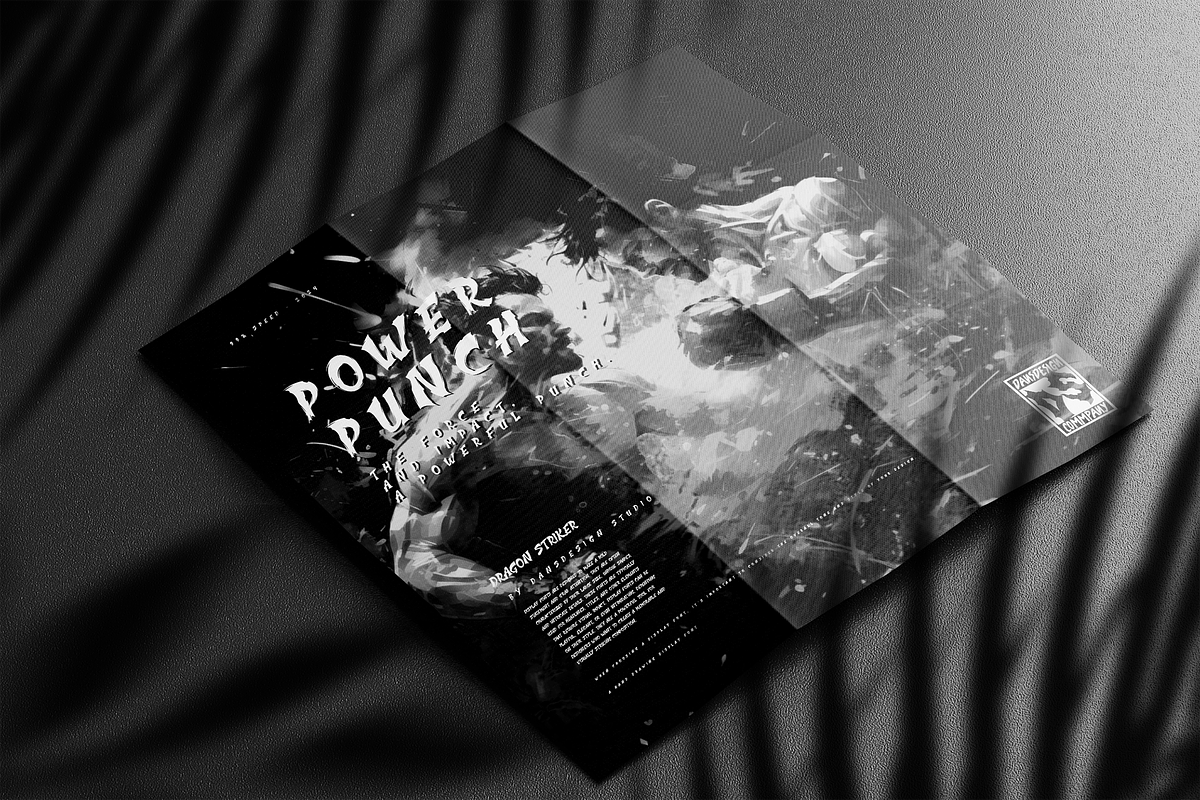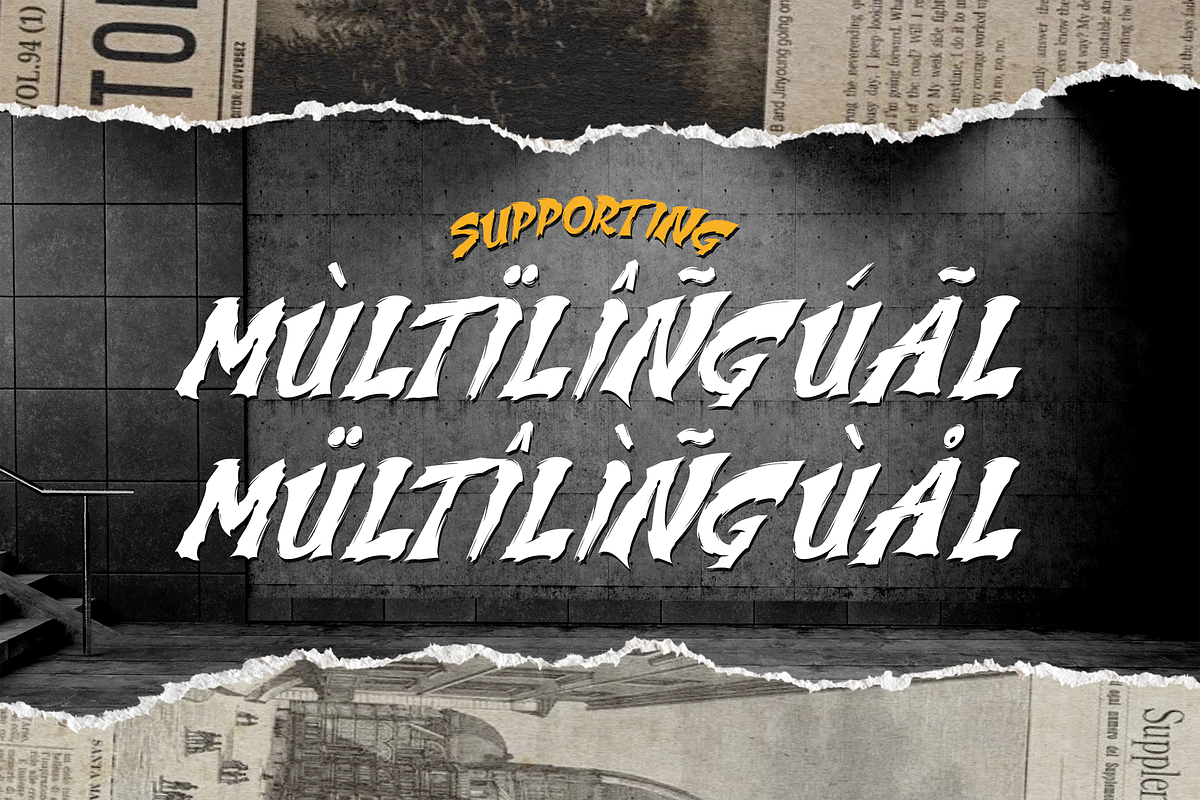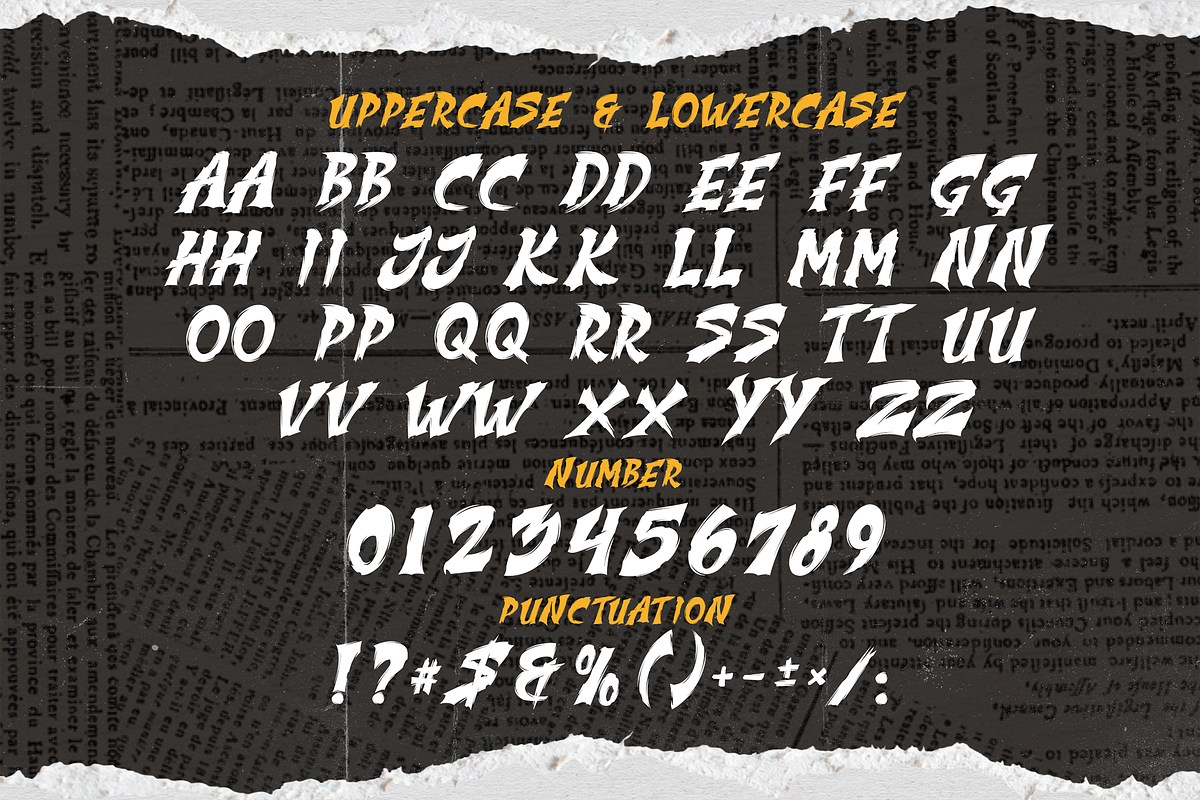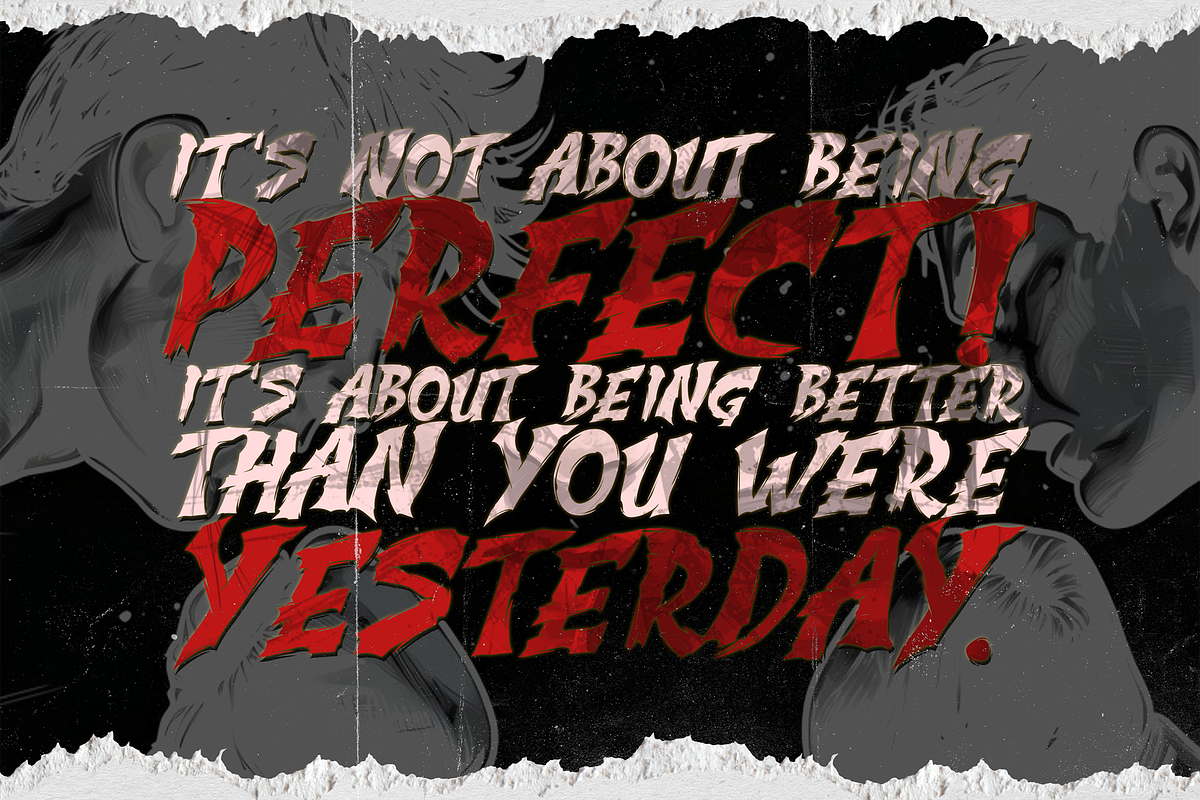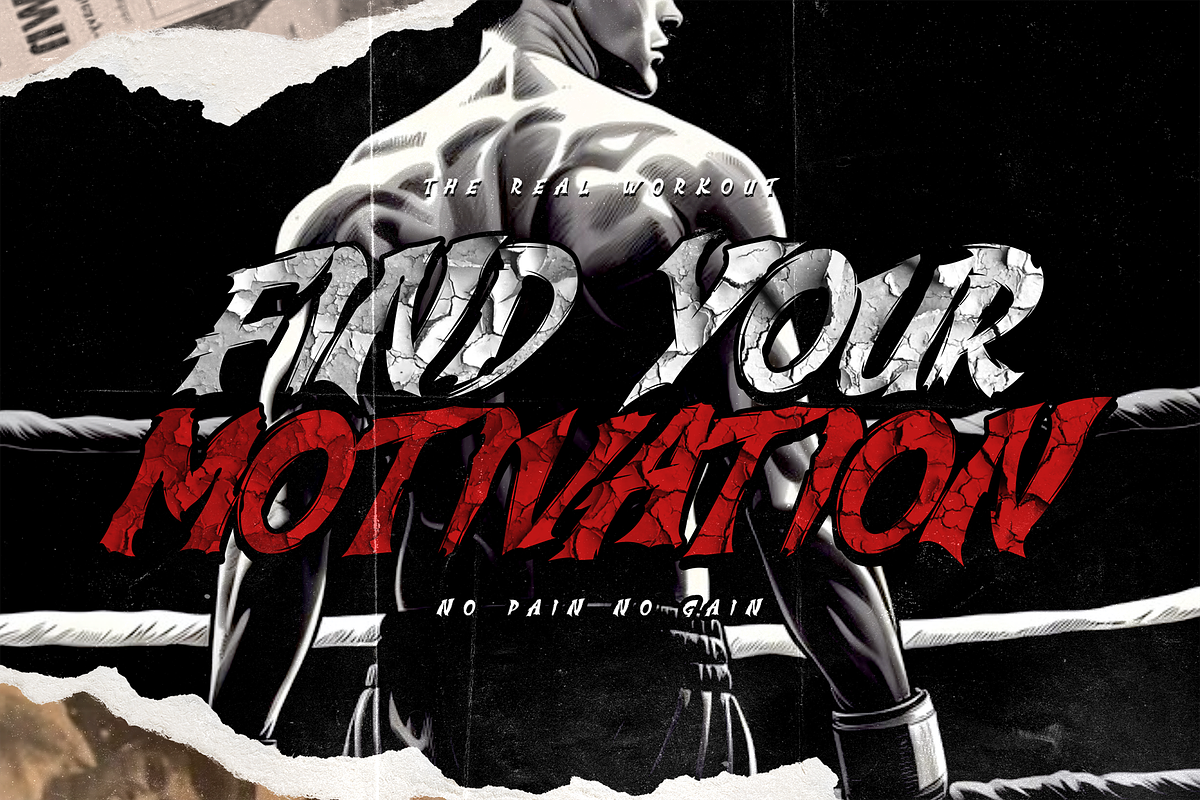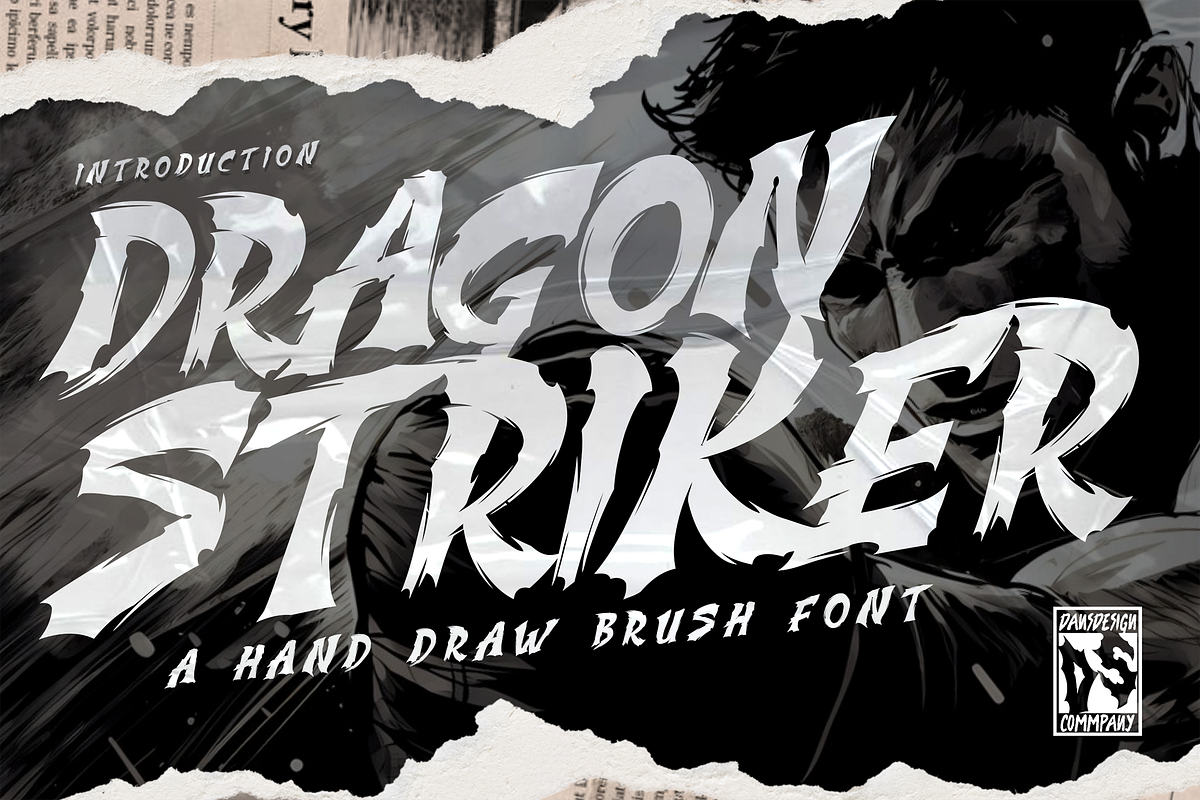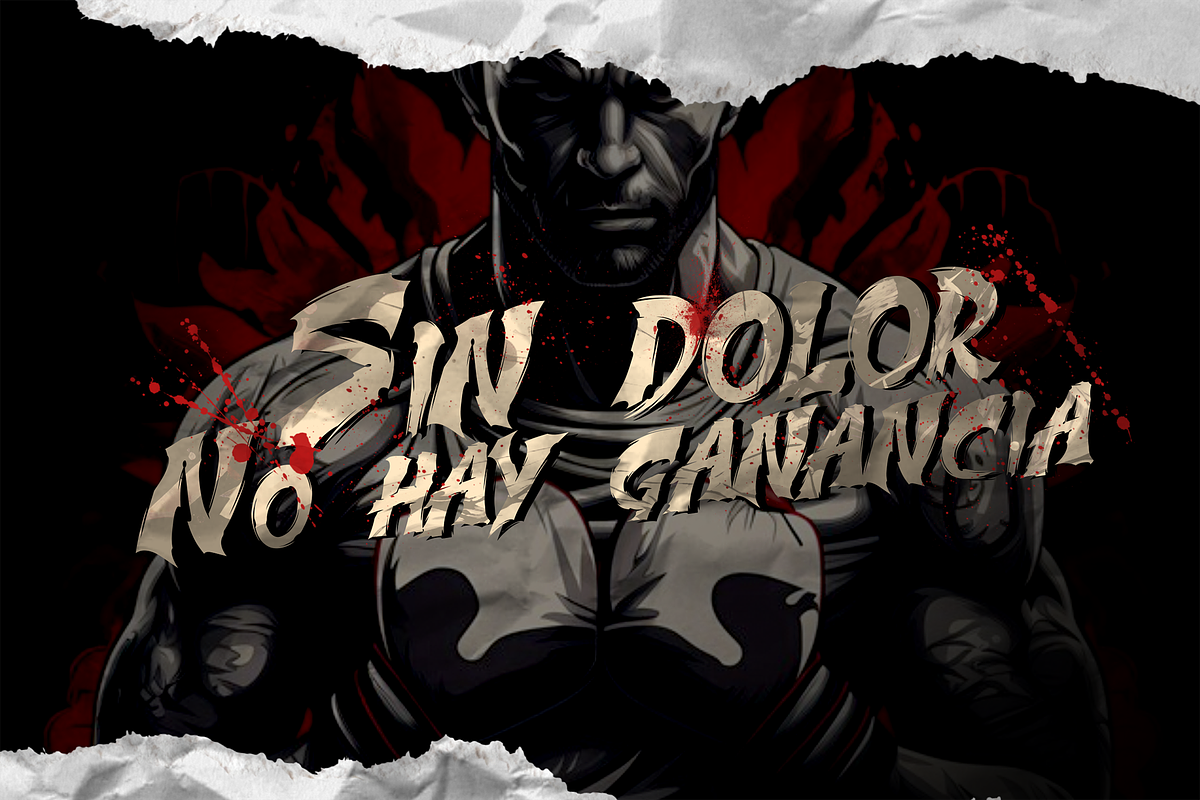
Dragon Striker Horror Marker Y2k
Dragon Striker Horror Marker Y2k Brush Display is a distinct, highly detailed. Marker Display Font. It would make a great choice for exquisite retro-urban designs, business branding, logos, Apparel designs, and more.
Featured : Accents (Multilingual characters) PUA encoded Numerals and Punctuation (OpenType Standard)